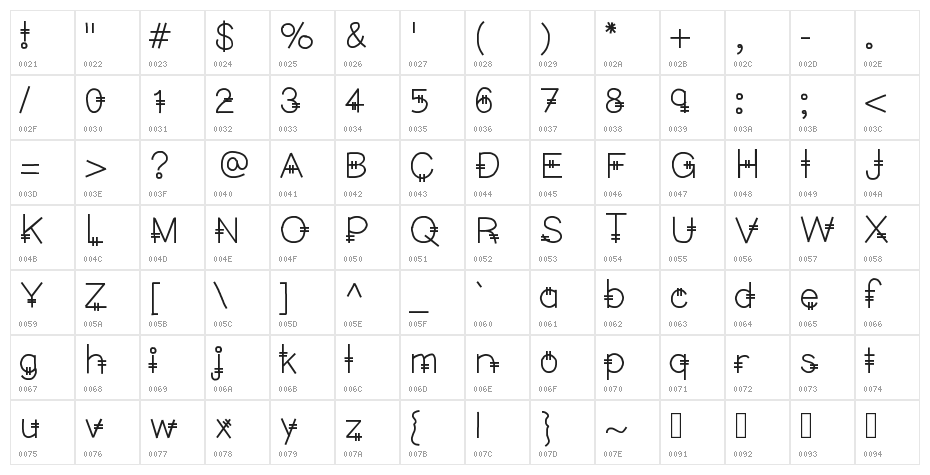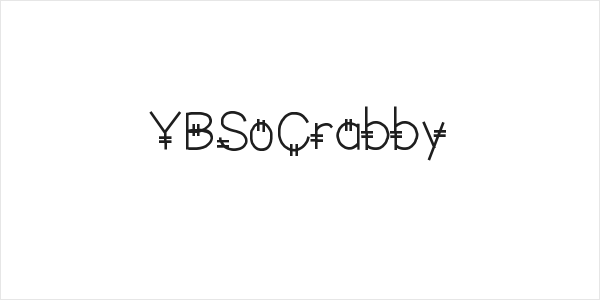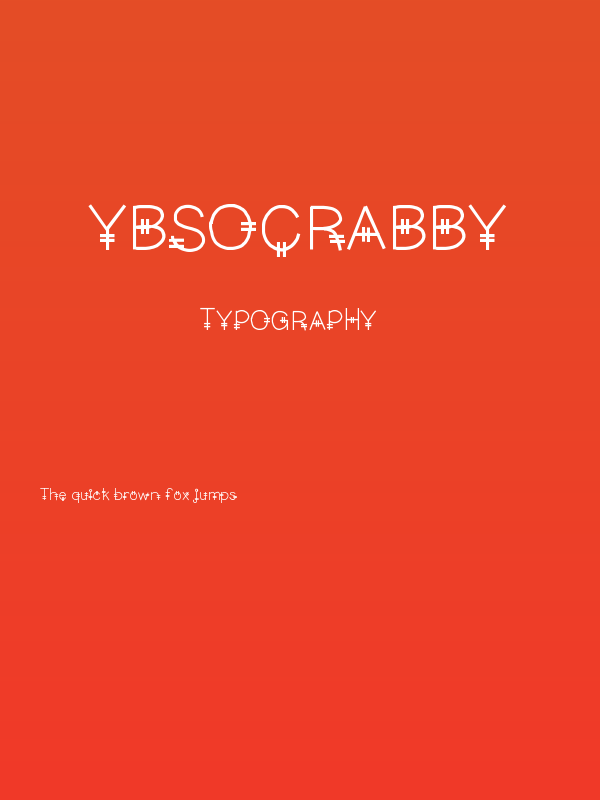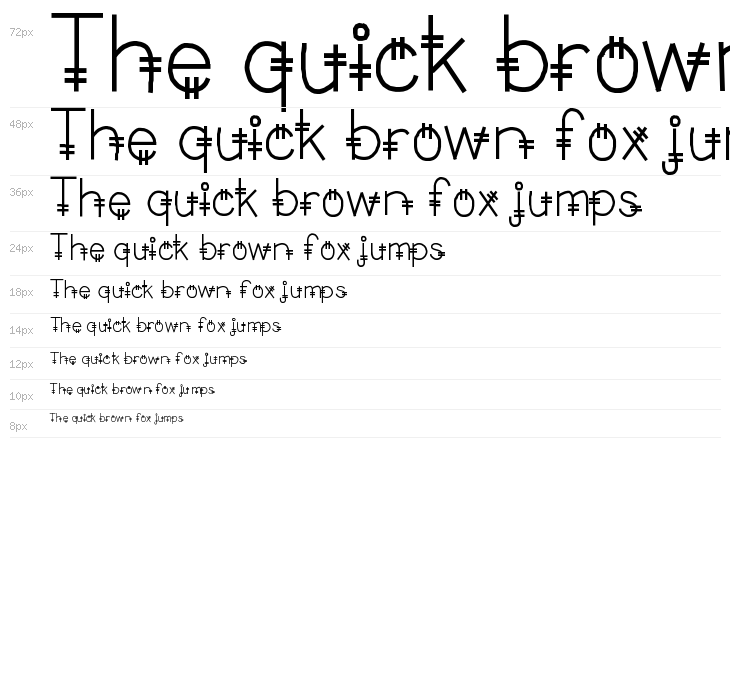
YBSoCrabby Font
YBSoCrabby Description
This font features a unique and playful design with a modern twist. Each character incorporates a distinctive double-line element, creating a sense of movement and energy. The uppercase letters are bold and structured, while the lowercase letters maintain a consistent style with slight variations in height and curve. Numbers and special characters follow the same design principles, ensuring a cohesive look across all text. The font's innovative style makes it stand out, offering a fresh take on traditional typography.